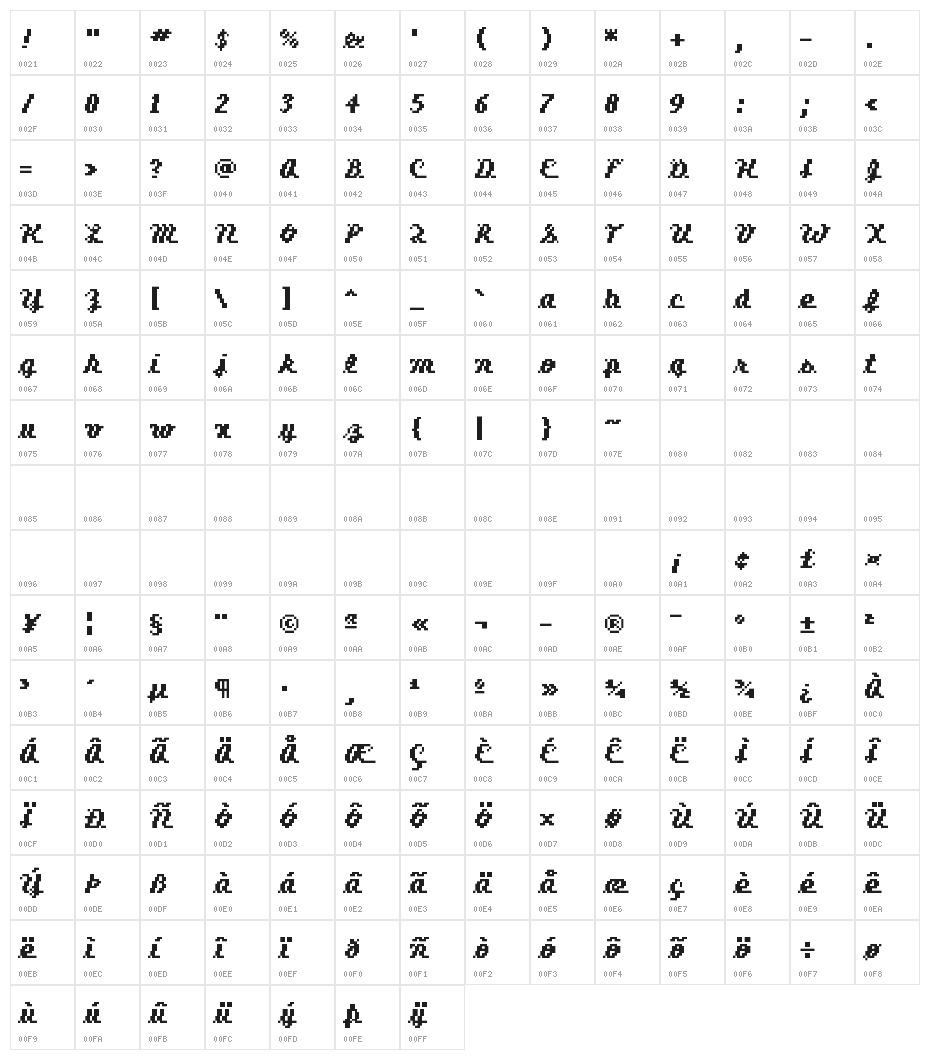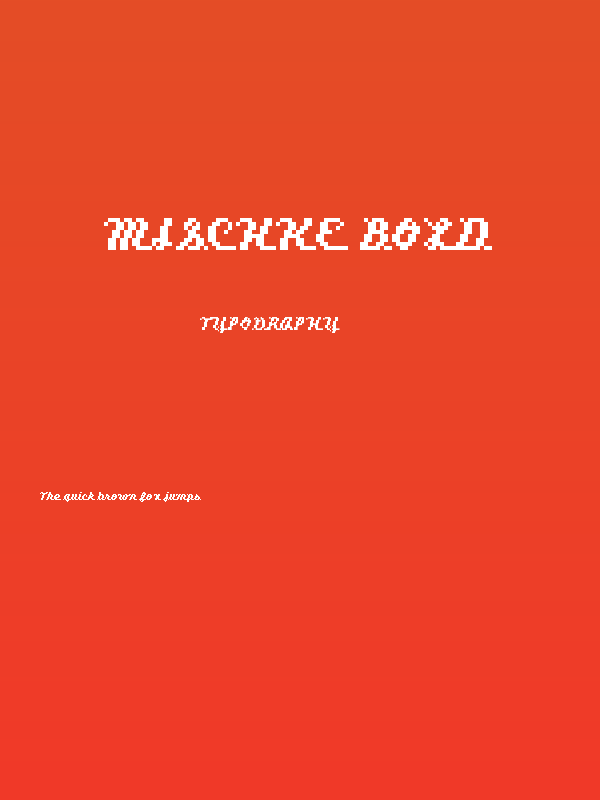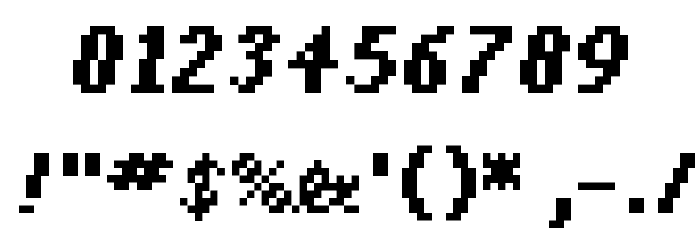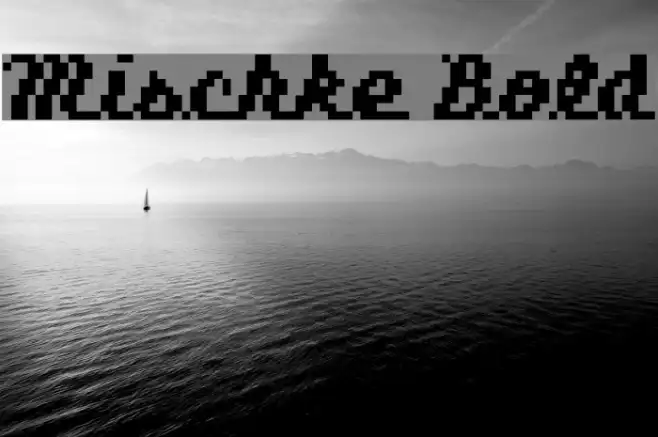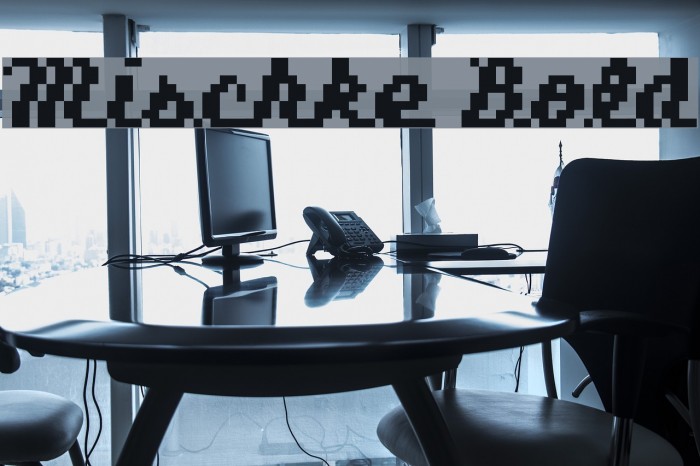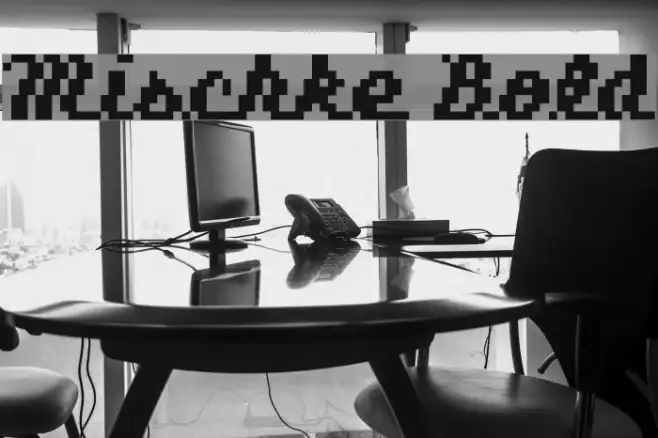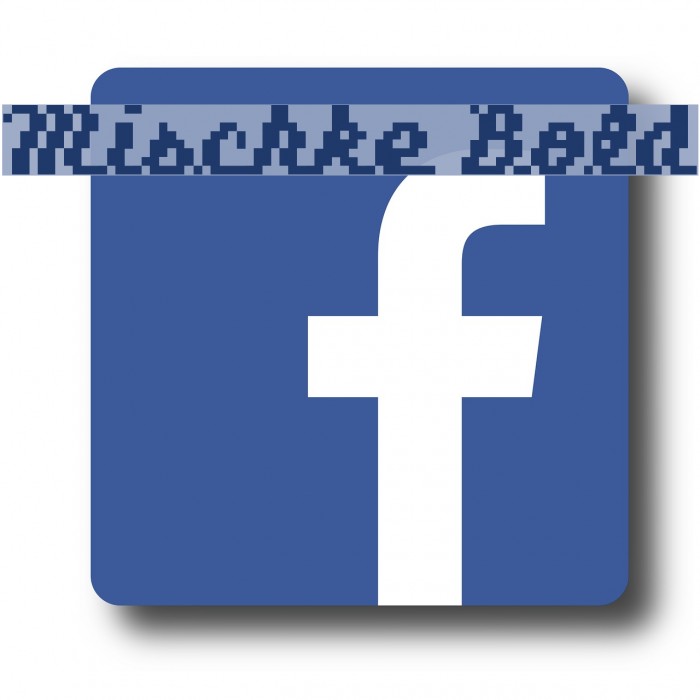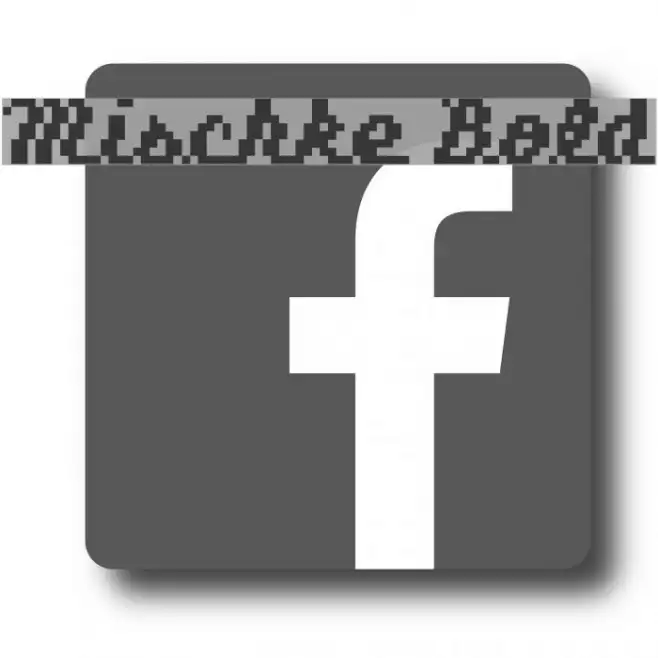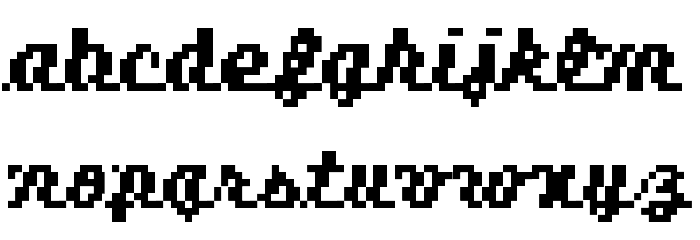
Mischke Bold Font
Mischke Bold Description
This font features a bold, pixelated style reminiscent of early digital or video game typography. The characters are formed with a blocky, grid-like structure, giving it a retro, nostalgic feel. Each letter is distinct, with consistent height and width, contributing to a uniform appearance. The uppercase and lowercase letters maintain a cohesive look, while the numbers and special characters are easily distinguishable. This font's design is straightforward yet impactful, making it suitable for projects that aim to capture a vintage digital aesthetic.
| Overall Style | Vintage |
| Proposed Projects | Ideal for video game graphics, retro-themed posters, digital art projects, and any design requiring a nostalgic digital touch. |